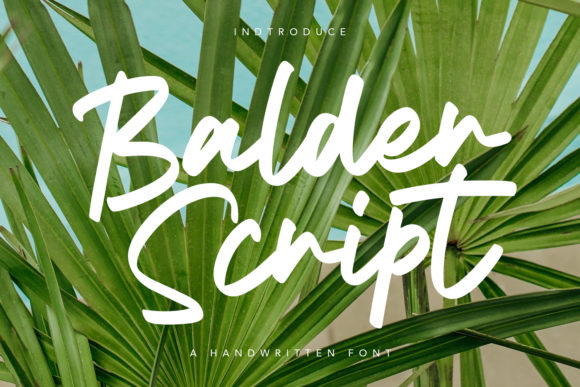
Introducing Balder Script Font, a beautiful and captivating brush pen font that effortlessly adds a touch of elegance and charm to your creative projects. Carefully crafted by the talented Maulana Creative, this font exudes a mesmerizing handwritten feel, making it the perfect choice for creating stunning wedding invitations, heartfelt thank-you cards, inspiring quotes, and personalized greeting cards.
With its timeless appeal, Balder Script Font seamlessly enhances logos, business cards, and any design that yearns for a genuine handwritten aesthetic. Whether you're a seasoned designer or just starting your creative journey, Balder Script Font is your key to unlocking a world of design possibilities.
Step into a world of creativity where your words dance with grace and elegance. Balder Script Font's enchanting strokes captivate the eye, inviting your audience to immerse themselves in your message. From heartfelt love letters to compelling marketing campaigns, this font transforms ordinary words into captivating expressions of art.
With Balder Script Font, your designs will radiate with an aura of sophistication and charm. Its versatile nature makes it an ideal choice for a wide range of projects, from elegant wedding stationery to eye-catching social media posts. Let your creativity soar and leave a lasting impression with every design you create.
Embrace the beauty of handwritten artistry with Balder Script Font. Its enchanting strokes will breathe life into your designs, evoking emotions and creating a connection with your audience. Download Balder Script Font today and embark on a creative journey that will leave you spellbound.